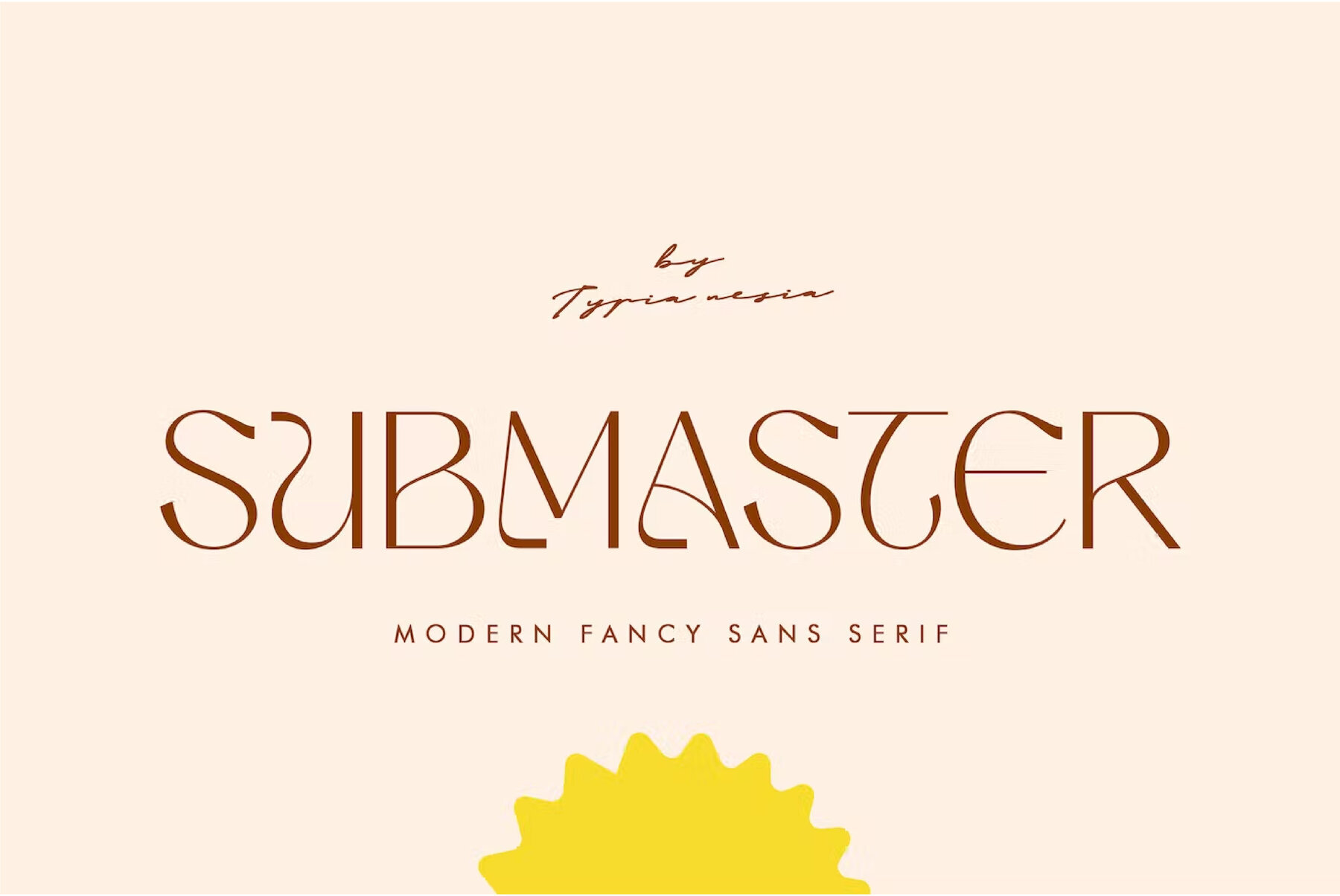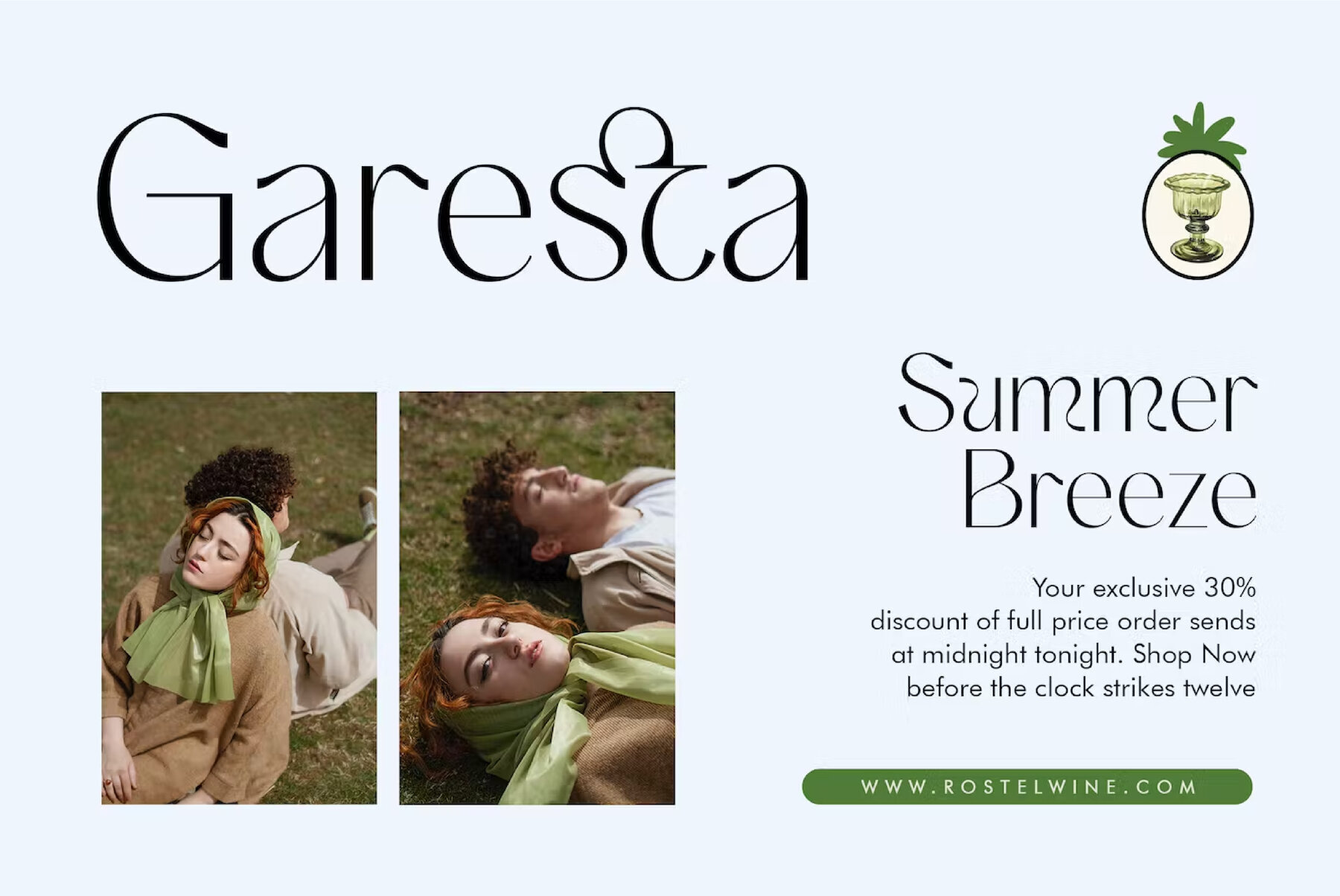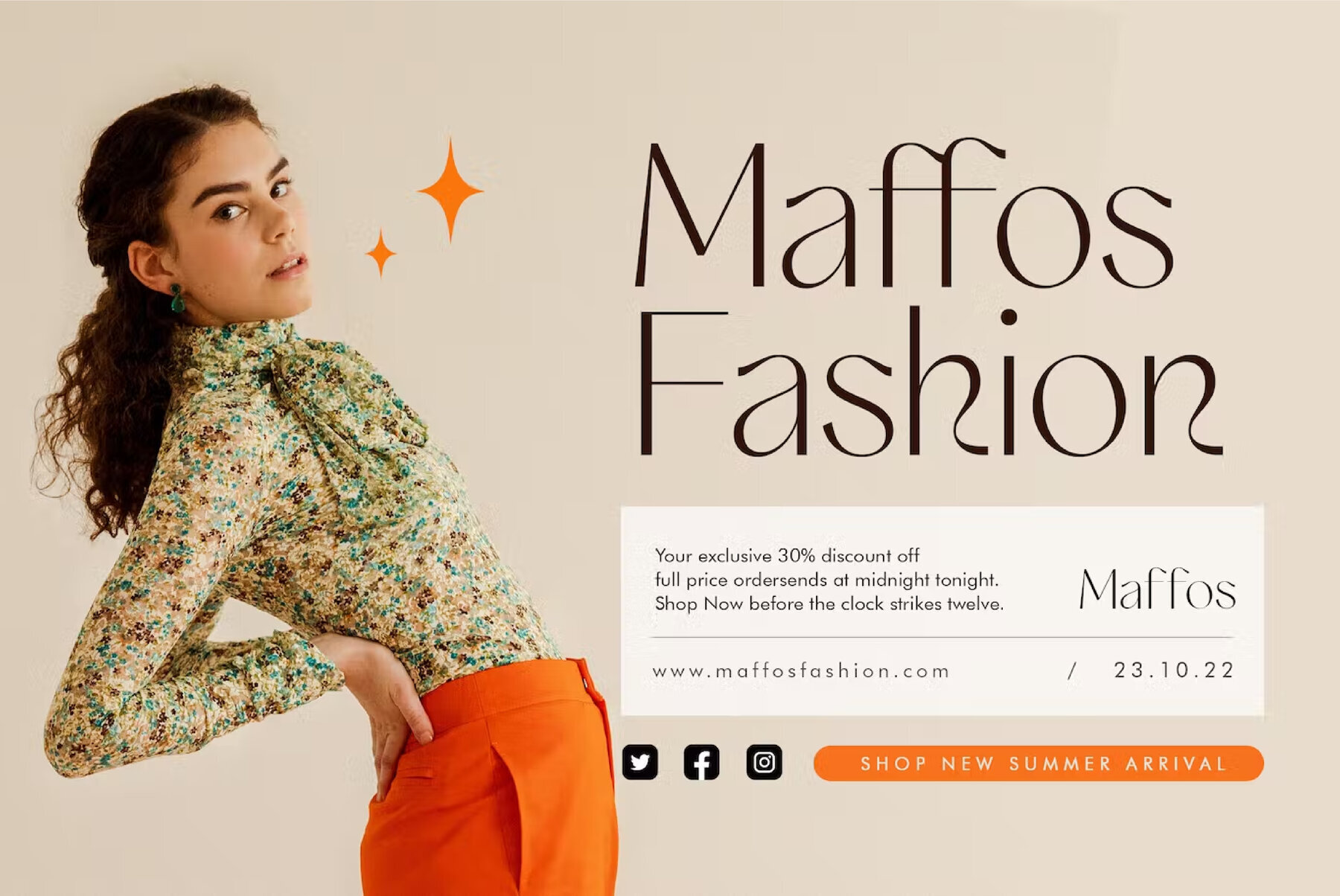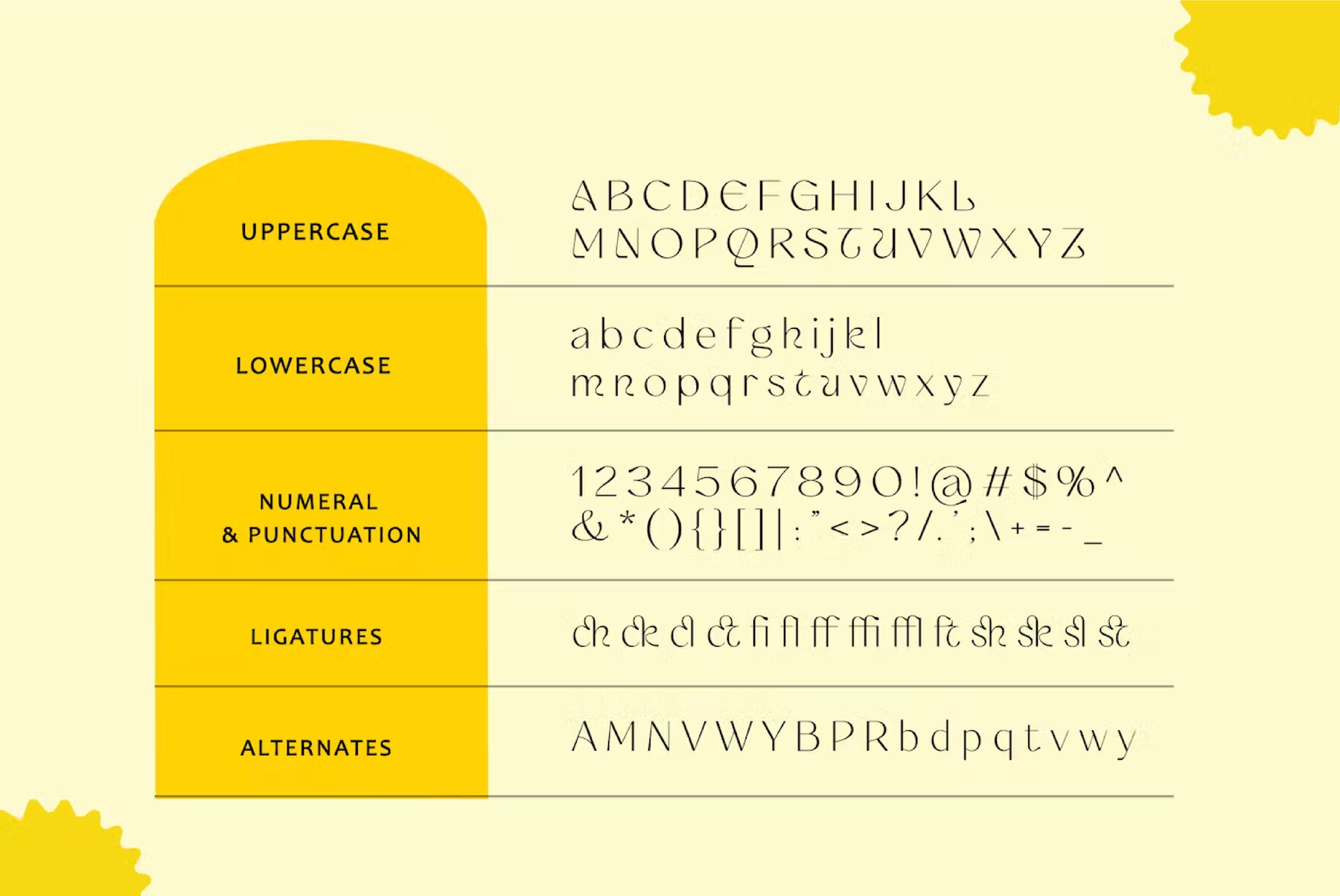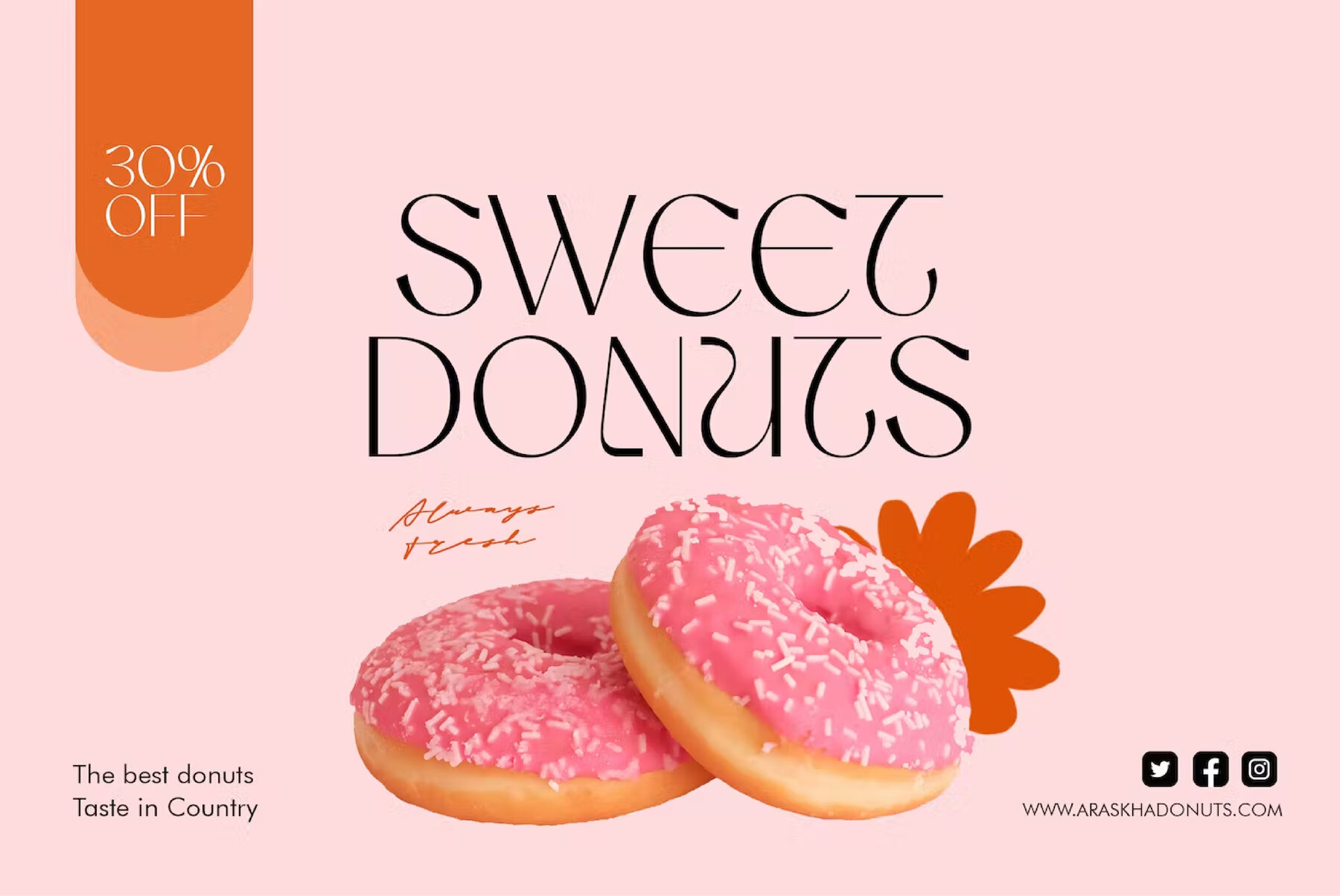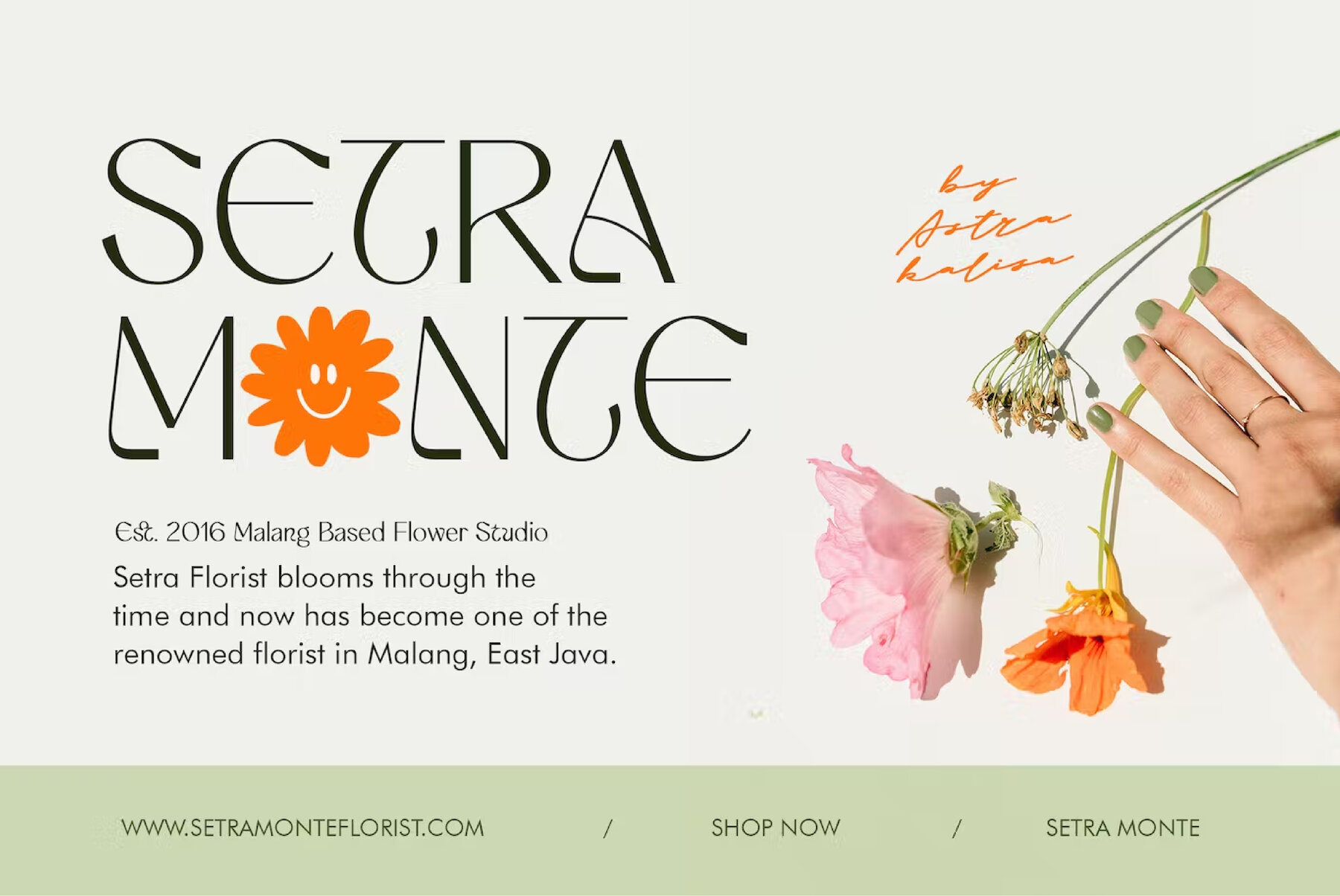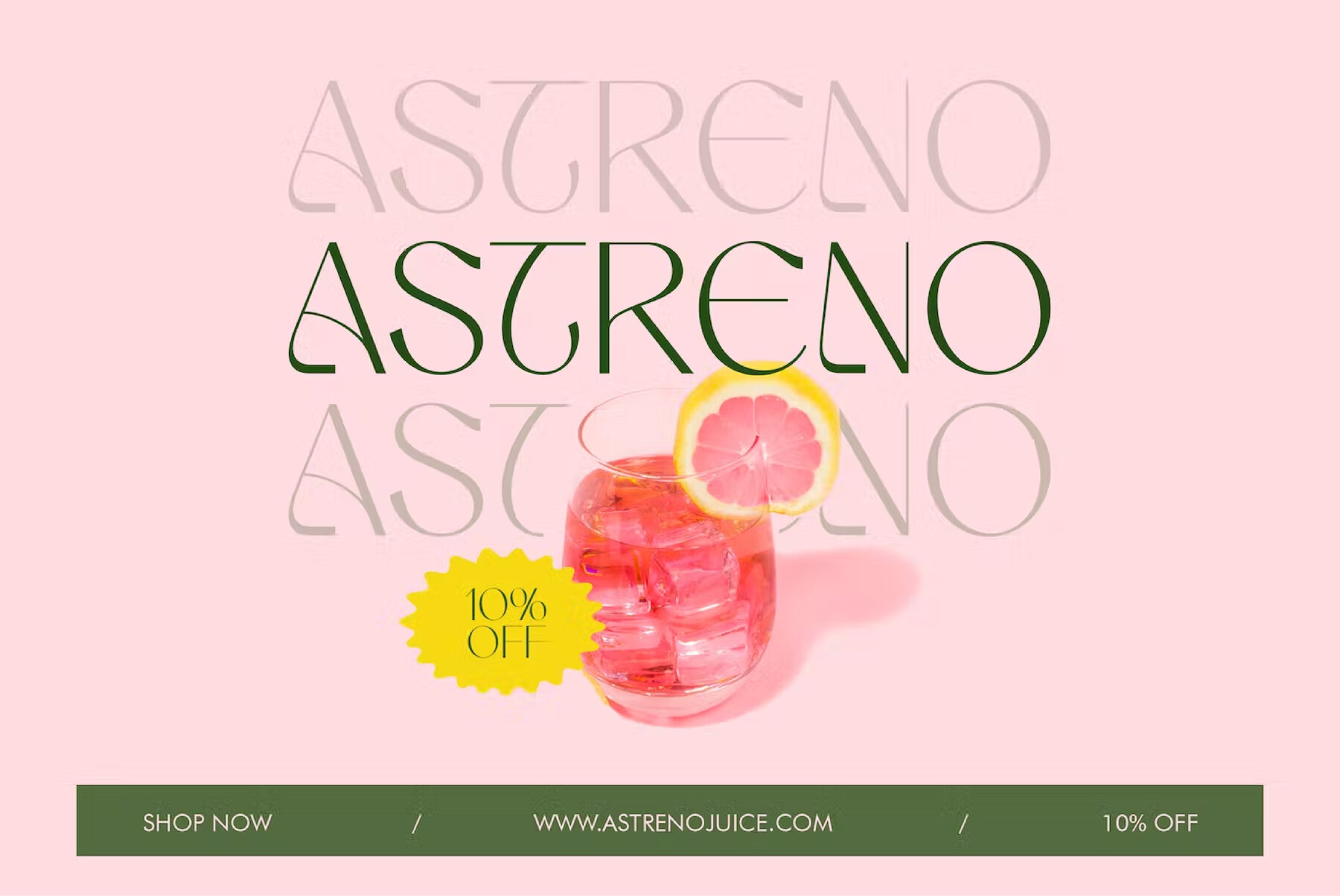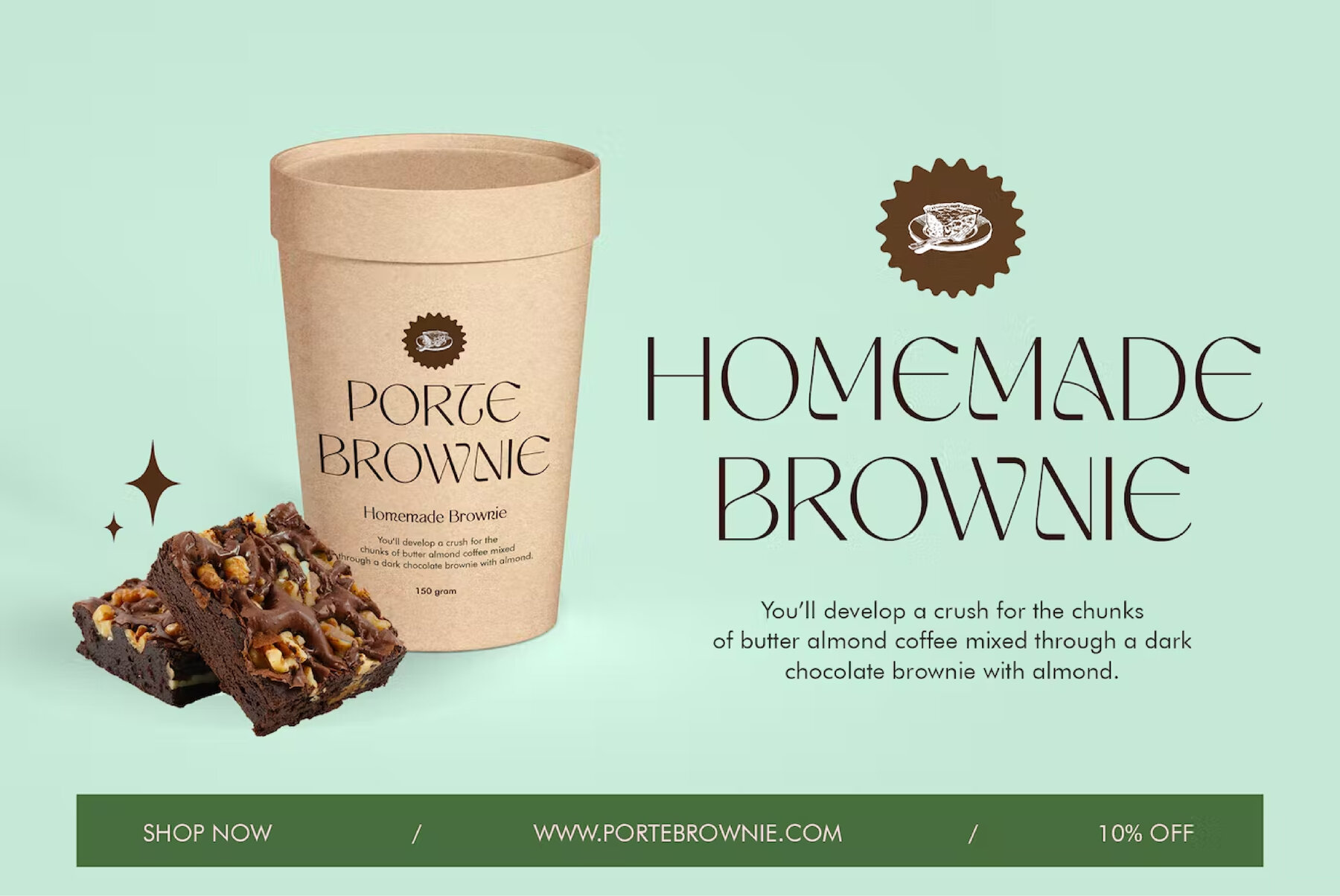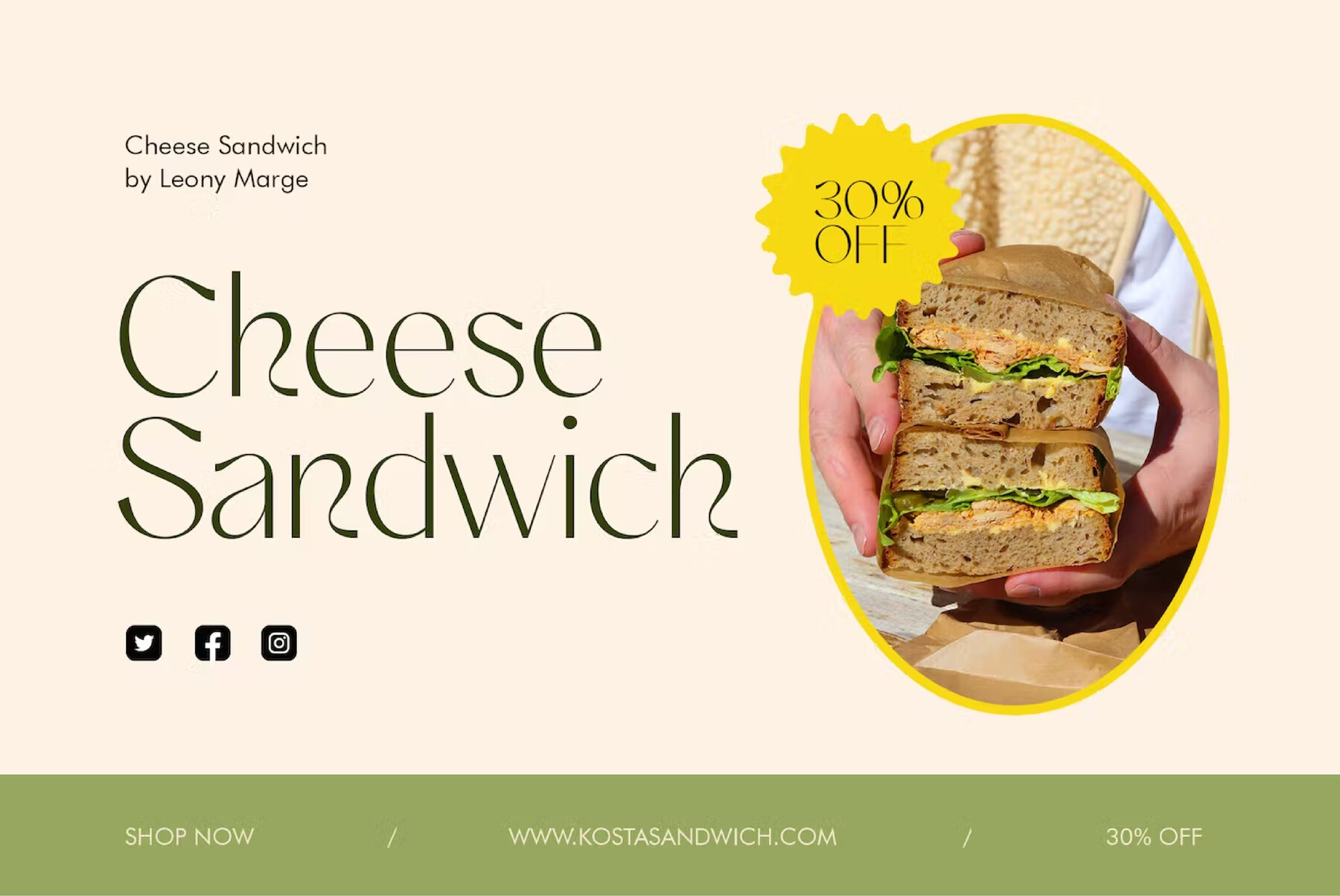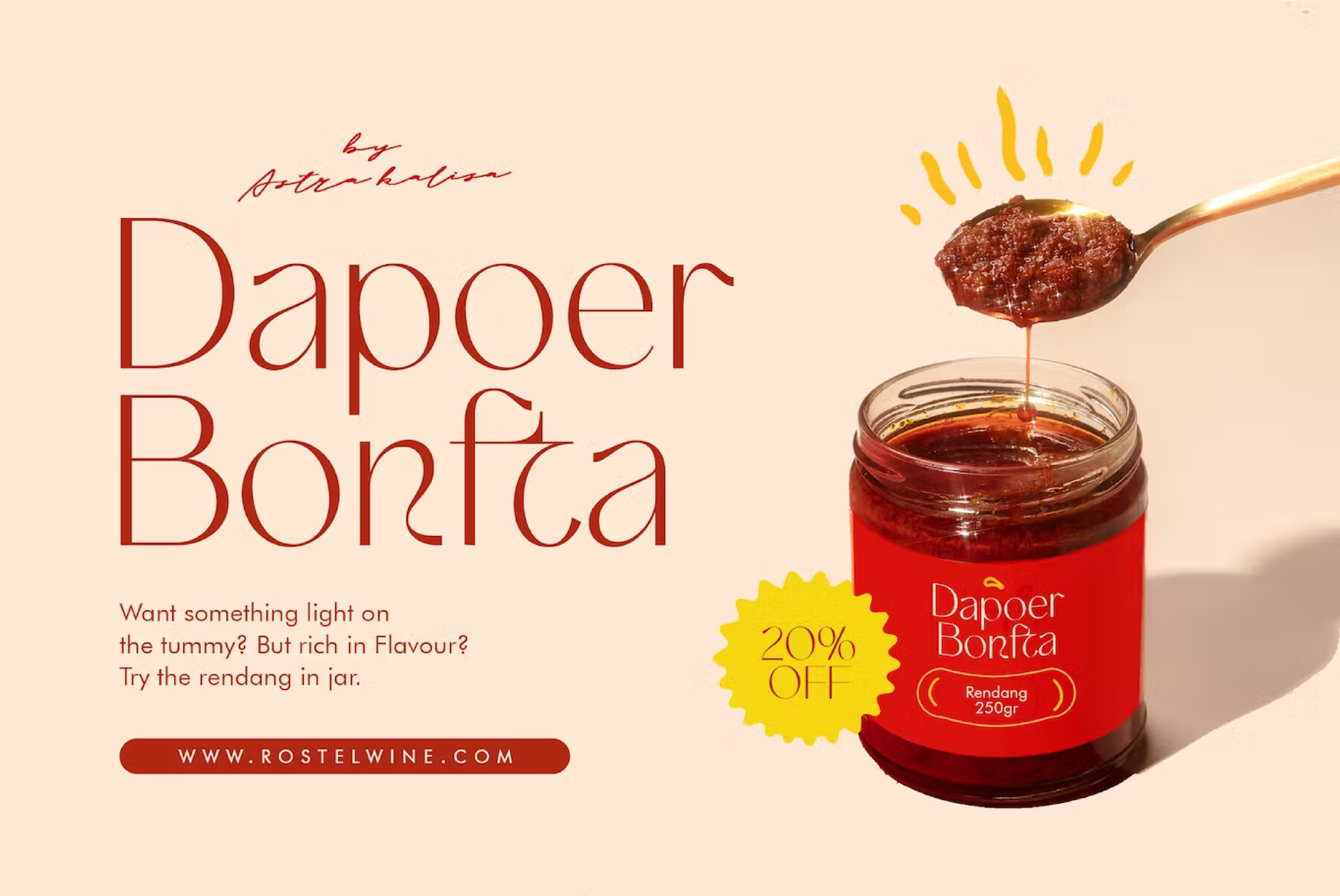
Submaster Font
Submaster Regular
Submaster Serif comes with some alternates and ligatures, so you can combine it to make a perfect typography design. It is perfect for your up coming projects. Such as luxury logo and branding, classy editorial design, woman magazine, cosmetic brand, fashion promotional, art gallery branding, museum, historical of architectural, boutique branding, stationery design, blog design, modern advertising design, card invitation, art quote, home decor, book/cover title, special events and any more.